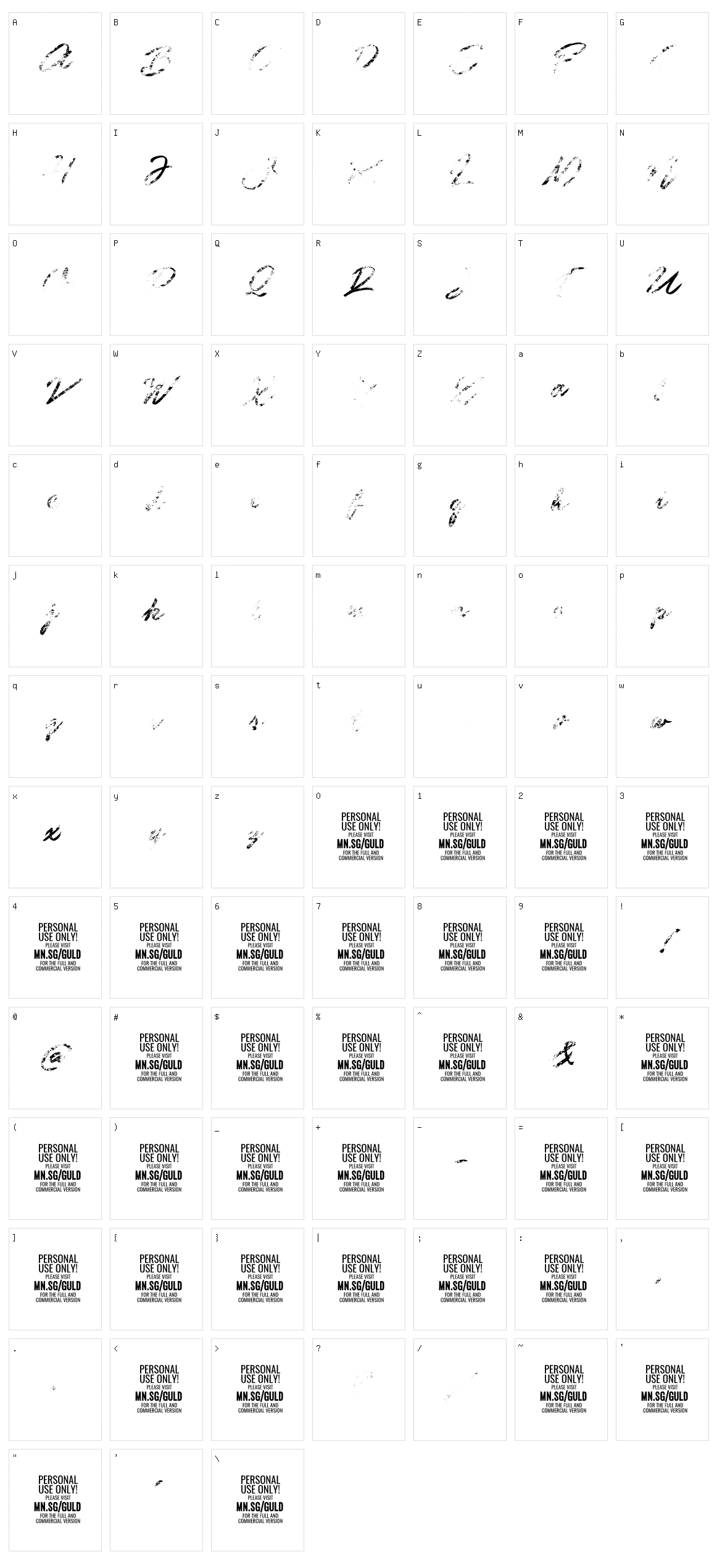
Guld Script Color is a true color font for Photoshop and Illustrator.
It is a fast brush font with a golden, royal shine.
Supports Latin based European languages and contains punctuation and numbers.